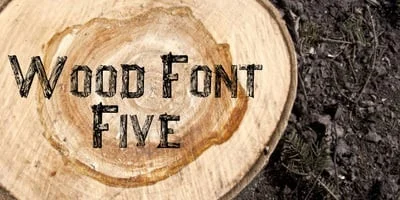
Wood Font Five
Wood Font Five Font
Wood Font Five Font is perfect for rustic furniture company branding, woodworking workshop signage, artisanal carpenter marketing, forest conservation materials, lumber mill communications, and authentic craftsmanship projects. Its natural character makes it ideal for custom furniture makers, woodworking schools, forest product manufacturers, timber frame builders, and any application requiring organic typography that conveys artisanal woodcraft, sustainable forestry, and the timeless beauty of natural wood textures.
Wood Font Five Font is exciting because it captures the organic warmth and natural authenticity of fine woodworking through textured letterforms that reflect the grain patterns and rustic beauty found in premium hardwoods. Its wooden proportions and craft-inspired details evoke the satisfying feeling of hand-carved craftsmanship and the sustainable connection between artisans and natural materials, making it perfect for brands celebrating traditional woodworking skills and environmental stewardship. The font's wooden character transforms digital text into expressions of natural craftsmanship.
Wood Font Five Font family includes craft-inspired weight variations typically featuring Light, Regular, Medium, and Bold options with textured styling that maintains woodworking authenticity. The family often incorporates carpentry symbols, woodworking tools, and natural elements designed for artisanal applications, providing designers with comprehensive tools for creating authentic, wood-focused typographic compositions.
When selecting artisanal woodworking typography solutions, Wood Font Five Font represents an exceptional choice for craftsmanship and forestry projects. This natural typeface brings instant woodworking authenticity to any design, making it invaluable for furniture makers, carpentry schools, and sustainable forestry organizations celebrating traditional crafts. Whether you're developing custom furniture branding, creating woodworking workshop materials, or designing forest conservation campaigns, Wood Font Five Font provides the natural warmth and artisanal authenticity essential for connecting with craft-conscious audiences in today's handmade-focused marketplace.